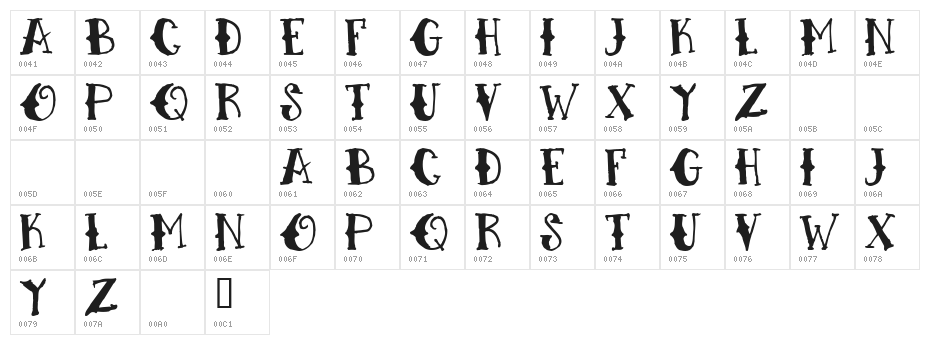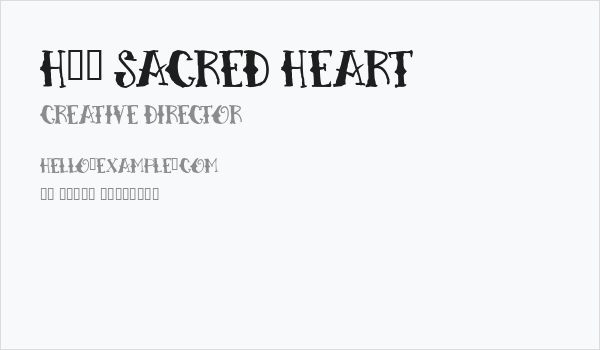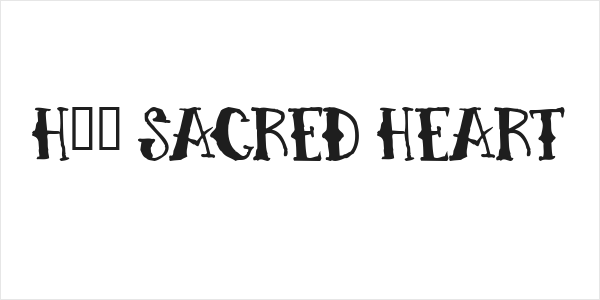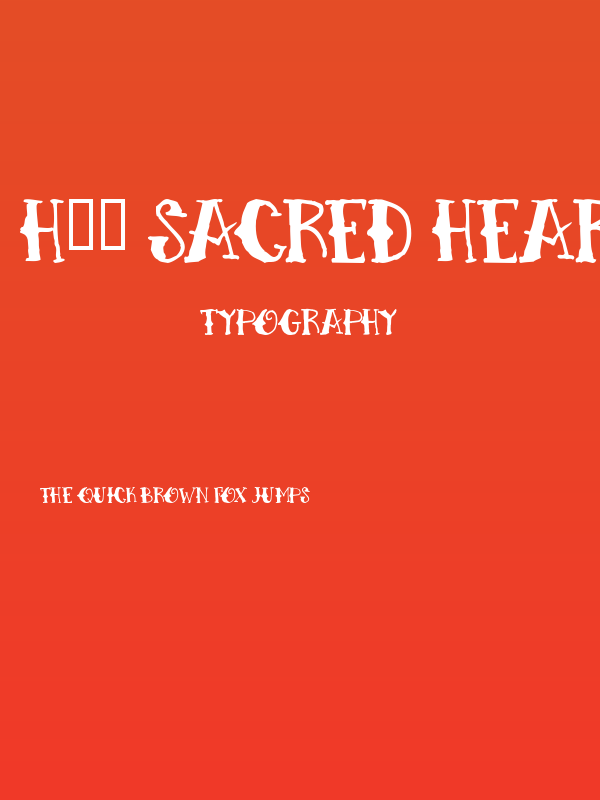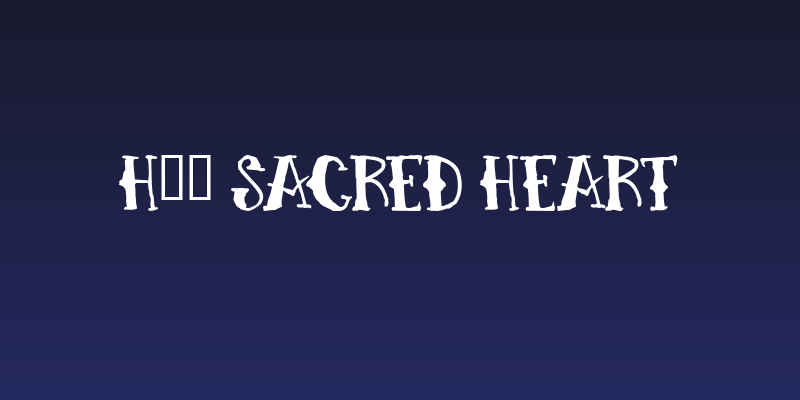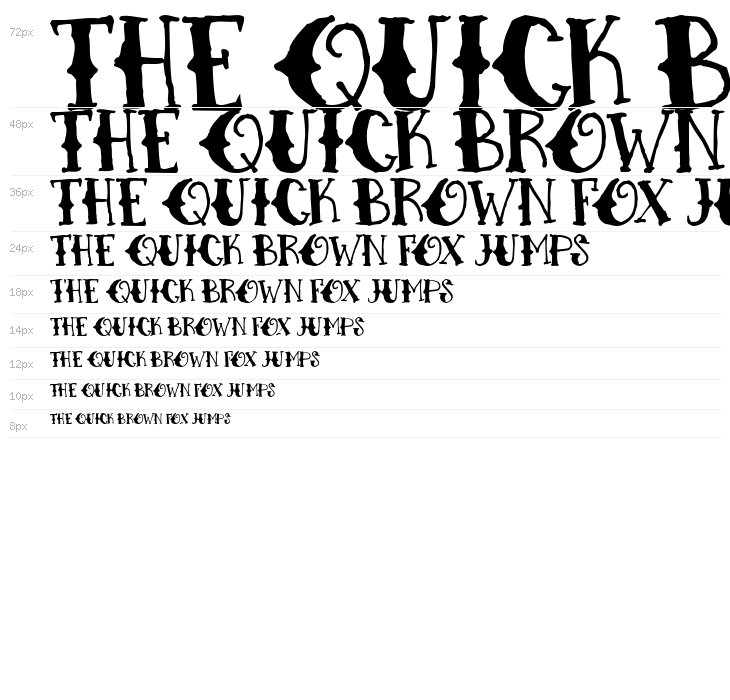
H74 Sacred Heart Font
H74 Sacred Heart Description
This font features a bold and dramatic style with a distinct gothic influence. The characters are adorned with sharp, angular serifs and intricate detailing that gives them a slightly distressed appearance. The uppercase letters are particularly striking, with a strong presence and unique flair. The lowercase letters maintain the same stylistic elements, ensuring consistency throughout the typeface. The overall design is reminiscent of medieval or fantasy themes, making it ideal for projects that require a touch of the dramatic or the mystical.
Overall StyleGothic, Dramatic
Proposed ProjectsIdeal for fantasy book covers, gothic-themed posters, or branding for alternative music bands.